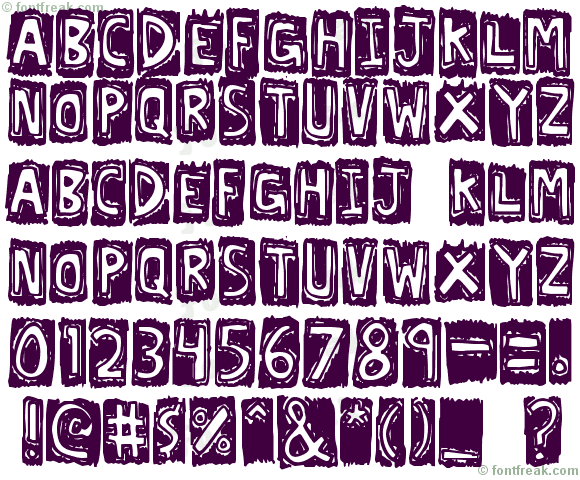
Lexographer
About Lexographer
Lexographer, designed by Divide By Zero, is a distinctive display font characterized by its playful and quirky aesthetic. This font falls into the decorative category, featuring a bold and whimsical design that captures attention. The stroke weight is varied, lending an organic feel to the letterforms, while the spacing is generous, allowing each character to breathe and stand out. The visual elements are marked by uneven edges and a slightly irregular shape, which adds to its unique charm and personality.
This font is particularly well-suited for a variety of creative projects. It shines in contexts such as children's book covers, where its fun and engaging style can resonate with young readers. Additionally, Lexographer is an excellent choice for promotional materials for events like birthday parties or festivals, where its lively appearance can convey excitement and joy. It can also enhance restaurant menus, particularly for establishments that focus on casual dining or a fun atmosphere, as well as greeting cards that seek to deliver a lighthearted message.
Ultimately, Lexographer stands out for its ability to combine a playful visual style with versatility, making it a valuable asset for any designer's toolkit. Its distinctive look ensures that it will leave a memorable impression in any context, inviting viewers to engage and interact with the designs it adorns.